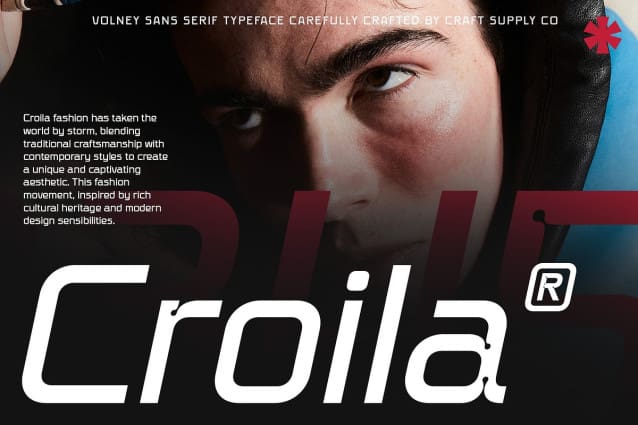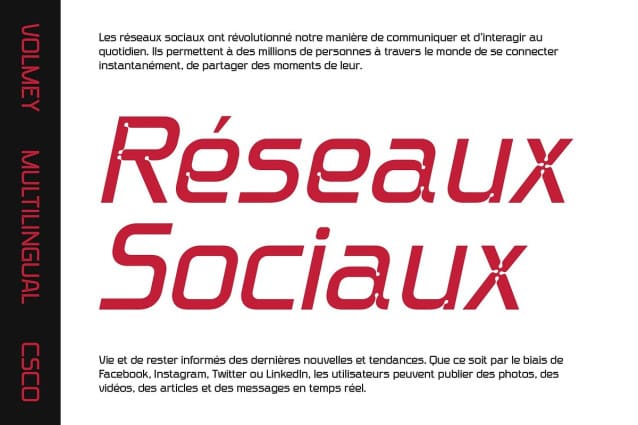
Volney Font
Volney Font is a contemporary sans-serif font featuring subtle inktrap details at the ends of its lines, enriching its character and visual appeal. This unique combination makes it an excellent choice for designs seeking a modern aesthetic with distinctive, eye-catching details.
The inktrap features of Volney add a touch of sophistication and uniqueness, making it stand out in various design applications. Whether used for headlines, branding, or editorial layouts, this font ensures your designs maintain a modern and refined appearance.
Despite its unique details, Volney offers versatility in design. Its clean lines and inktrap enhancements make it suitable for a wide range of projects, from digital interfaces to printed materials. Whether crafting a sleek corporate identity or designing engaging web content, Volney Font enhances your design with its blend of modern elegance and distinctive charm.